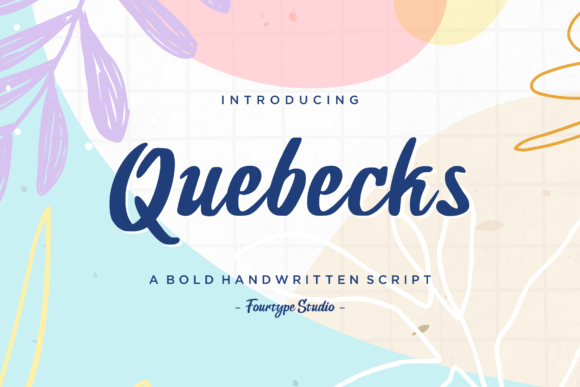
Unleash the beauty of handwritten elegance with Quebecks Font, the captivating script font that breathes life into your creative endeavors. Discover a world of possibilities as you explore this font's enchanting characters, meticulously crafted to evoke a sense of warmth and authenticity.
Immerse yourself in the charm of Quebecks Font, a script font that dances across the page with grace and fluidity. Its carefully designed curves and strokes lend an air of sophistication to your projects, whether you're designing logos, crafting invitations, or creating stunning social media posts.
With Quebecks Font, your words take on a new dimension of expression. Its playful personality shines through, adding a touch of whimsy and delight to your creations. Embrace the artistry of Quebecks Font and watch as your designs blossom into masterpieces.
More than just a font, Quebecks Font is an invitation to embark on a creative journey, where your imagination knows no bounds. Its versatility shines through in its ability to complement a wide range of design styles, from classic and elegant to modern and edgy.
Unlock the full potential of your creativity with Quebecks Font. Its beautiful and well-balanced characters harmonize seamlessly with your most ambitious ideas, bringing them to life with an unmatched charm and elegance. Let Quebecks Font be your muse, guiding you towards extraordinary design achievements.